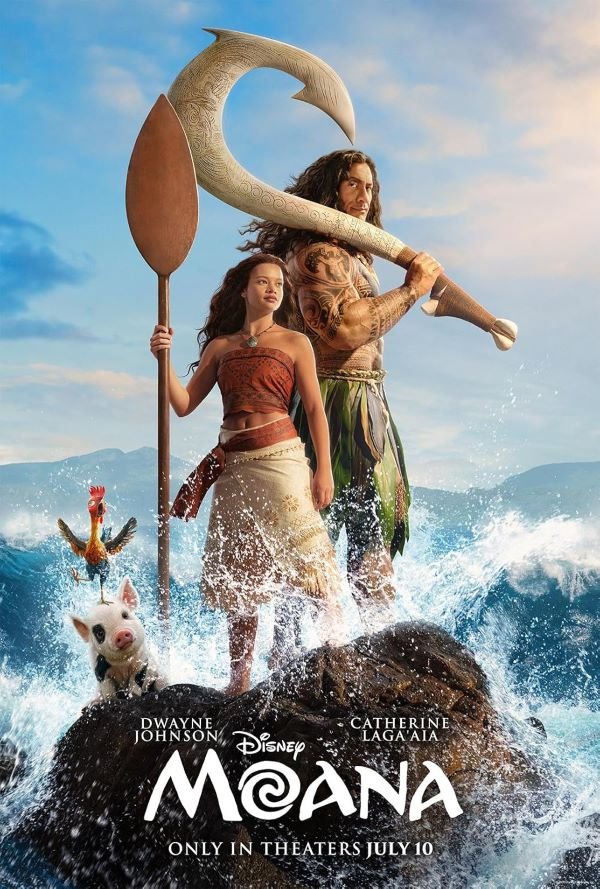
Moana Font
Moana Font is a Polynesian-inspired carved display font — matched by the Moanas typeface — with bold organic shapes, tropical carved details, and cultural motifs drawn from Pacific Island visual tradition, used for both Disney’s 2016 animated film and its 2026 live-action adaptation following brave young Moana as she voyages across the ocean to save her people. It’s a rare instance of a film title font that carries genuine cultural specificity rather than generic exoticism, with letterforms that feel grounded in the visual grammar of the story’s Polynesian heritage.